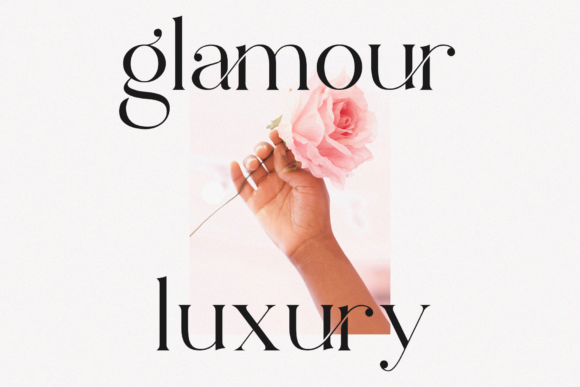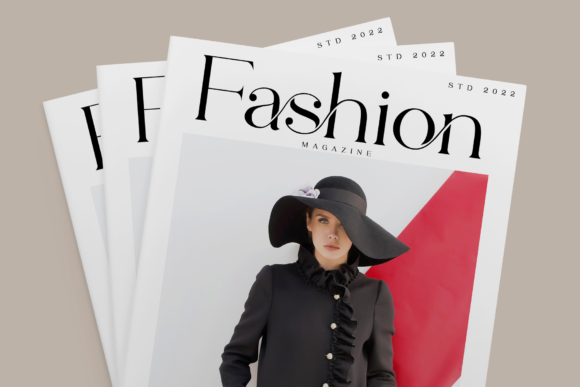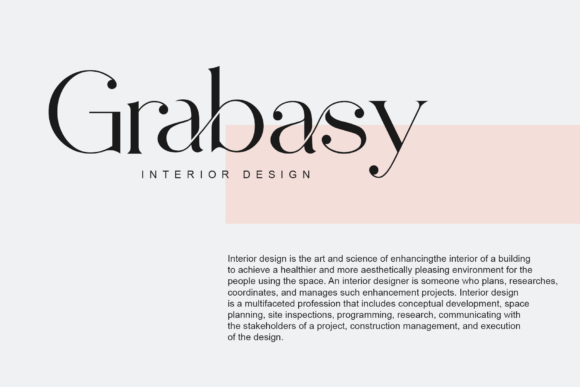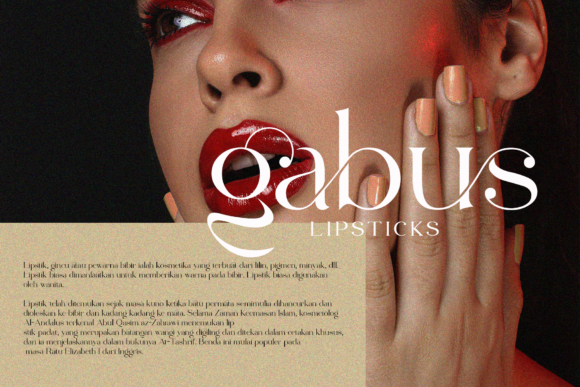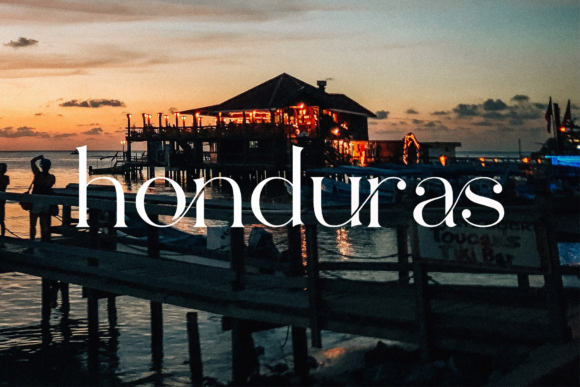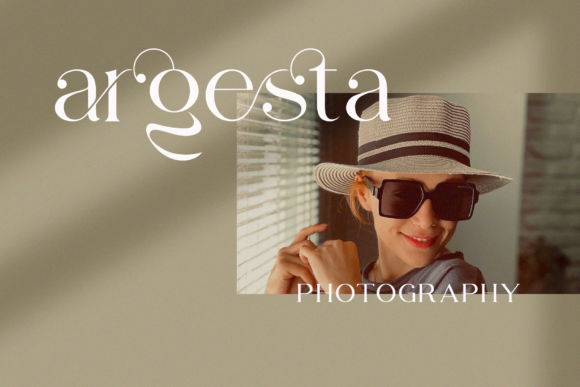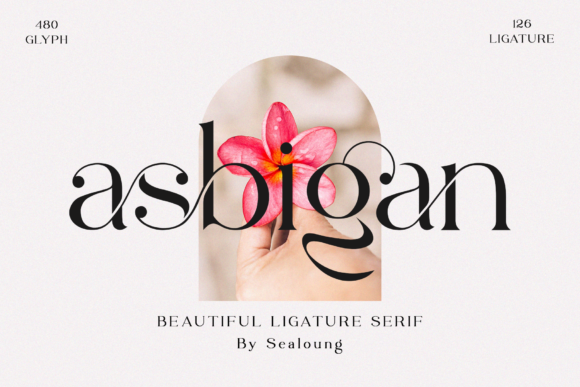
The Asbigan Font: Elevate Your Designs with Elegance
I’ll never forget the time I was working on a luxury branding project for a high-end jewelry client. I had spent hours perfecting the logo design, but something was missing. The font I had chosen just wasn’t delivering the level of sophistication and glamour that the brand demanded. That’s when I stumbled upon the Asbigan font, and it completely transformed the project. In this article, I’ll share my experience with this beautiful font, its features, and how to make the most of it in your designs.
An Honest Review of Asbigan Font
- ✨ Elegant and delicate serif design that adds a touch of luxury to any project
- ✅ PUA encoded for easy access to glyphs and ligatures
- 💫 Highly versatile and suitable for a wide range of design applications, from branding and logos to invitations and packaging
While Asbigan is an exceptional font, there are a few things to keep in mind:
- ⚠️ Some characters may require manual kerning for optimal results
- 🤔 Limited availability of certain characters may require creative workarounds
The Story Behind Asbigan Font
Asbigan was designed with elegance and sophistication in mind. Inspired by classic serif fonts, the designer aimed to create a font that would add a touch of luxury to any design project. With its delicate lines and beautiful glyphs, Asbigan is the perfect choice for designers looking to elevate their work.
A: PUA (Private Use Area) encoding allows font users to access a wide range of glyphs and ligatures, making it easier to create unique and creative designs.
Q: How do I access glyphs and ligatures in Asbigan?
A: Glyphs and ligatures can be accessed through OpenType features in compatible design software, such as Adobe Creative Cloud or Canva.
Q: Is Asbigan suitable for body text?
A: While Asbigan is an elegant font, it’s best suited for headlines, titles, and short paragraphs. For body text, a more readable font may be a better choice.